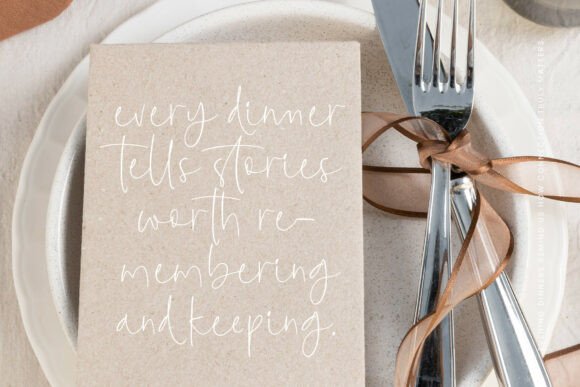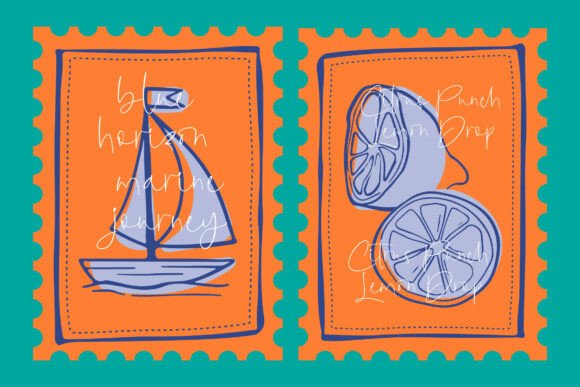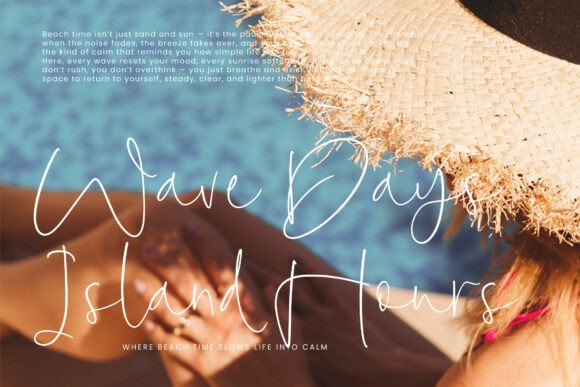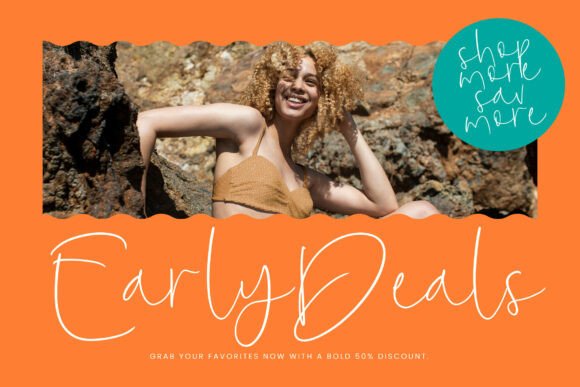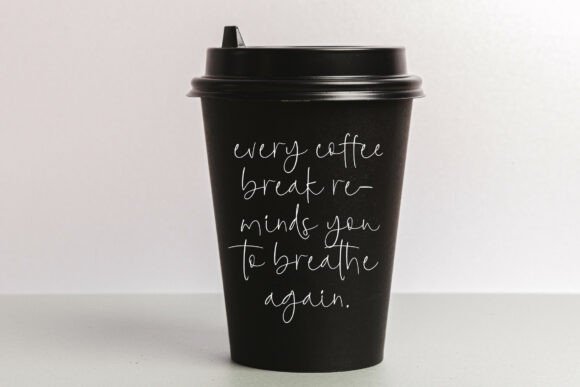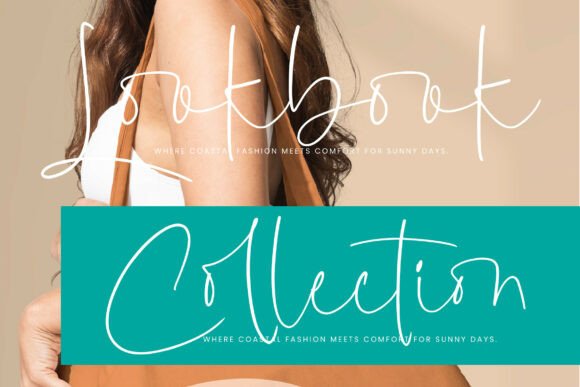
Introduction to Midnight Diamond Font
Do you ever find yourself lost in the stillness of the night, the only sound being the gentle hum of your design software as you pour your heart into a creative project? That’s where the magic happens, and for many of us, it’s a moment of pure bliss. As designers, we’re always on the lookout for the perfect font to elevate our work, and that’s exactly what the Midnight Diamond Font offers.
This stunning modern handwritten font from Integritype Studio is a game-changer for any luxury project that demands a touch of sophistication and high quality. With its elegant, cursive style, the Midnight Diamond Font is perfect for logos, branding projects, homewares designs, and so much more. Whether you’re working on a product packaging design, a quote for a special occasion, or a business card that screams premium, this font has got you covered.
Key Features of Midnight Diamond Font
• High-quality, intricate design ideal for creative projects
• Features a transparent background, allowing for seamless integration
• Includes a comprehensive character set, covering a wide range of languages
• Designed with a high resolution of 300 DPI, making it suitable for large-scale applications
• Unique, diamond-inspired design elements add a touch of elegance and sophistication to any project
Honest Review: Midnight Diamond Font
I recently stumbled upon the Midnight Diamond Font and was immediately drawn to its sleek, modern design. As a designer, I’m always on the lookout for high-quality resources to enhance my creative projects.
One of the standout features of this font is its versatility – it’s perfect for a wide range of applications, from logos and branding materials to digital signage and even print materials. The transparent background makes it easy to work with and customize to suit your needs.
• ✨ Clean and modern design
• ✨ Highly versatile
• ✨ Transparent background for easy customization
• ⚠️ Limited character set
• ⚠️ Not suitable for small text sizes
Overall, I’m impressed with the Midnight Diamond Font and would definitely recommend it to designers looking for a high-quality resource for their next project. It’s a solid addition to any design library and can help take your creative project to the next level.
The Midnight Diamond Font is a high-quality design resource perfect for adding a touch of elegance to your creative project. It’s available for free download and comes with a transparent background, making it easy to use in a variety of applications.
Tips for Getting the Most Out of Midnight Diamond Font
To get the most out of the Midnight Diamond Font, use it sparingly to add emphasis to key text elements. You can also combine it with other fonts to create a unique and eye-catching design.
The Midnight Diamond Font is perfect for use in a variety of creative projects, including logos, business cards, and wedding invitations. Its high-quality design and transparent background make it easy to use in a range of applications.